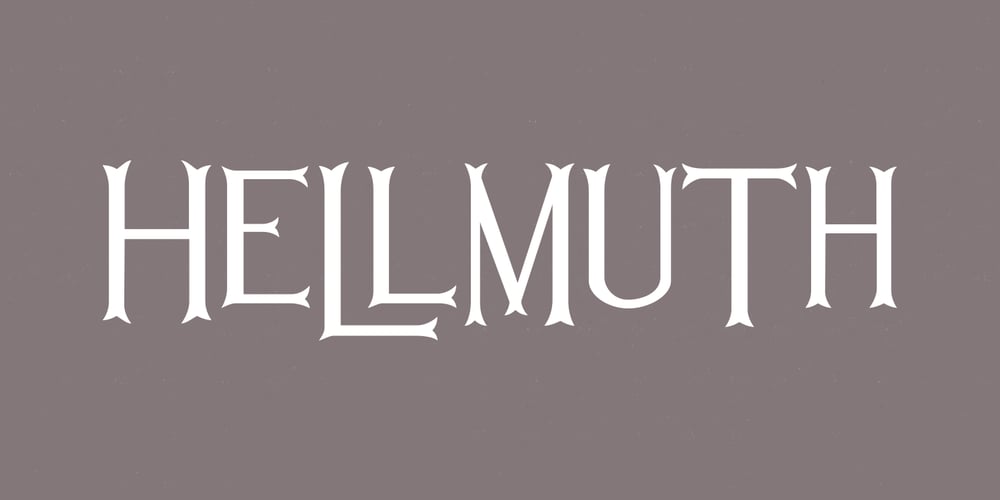
Hellmuth
Hellmuth font
Hellmuth Font Family was designed by Lauren Ashpole and published by Lauren Ashpole. Hellmuth contains 1 styles and family package options. A font loosely based on the writing on the Hellmuth Building (which I always read as Hellmouth Building and think, “That’s convenient, you know, for slayers”). I suggest mixing up the lowercase and uppercase characters at random for the best results.